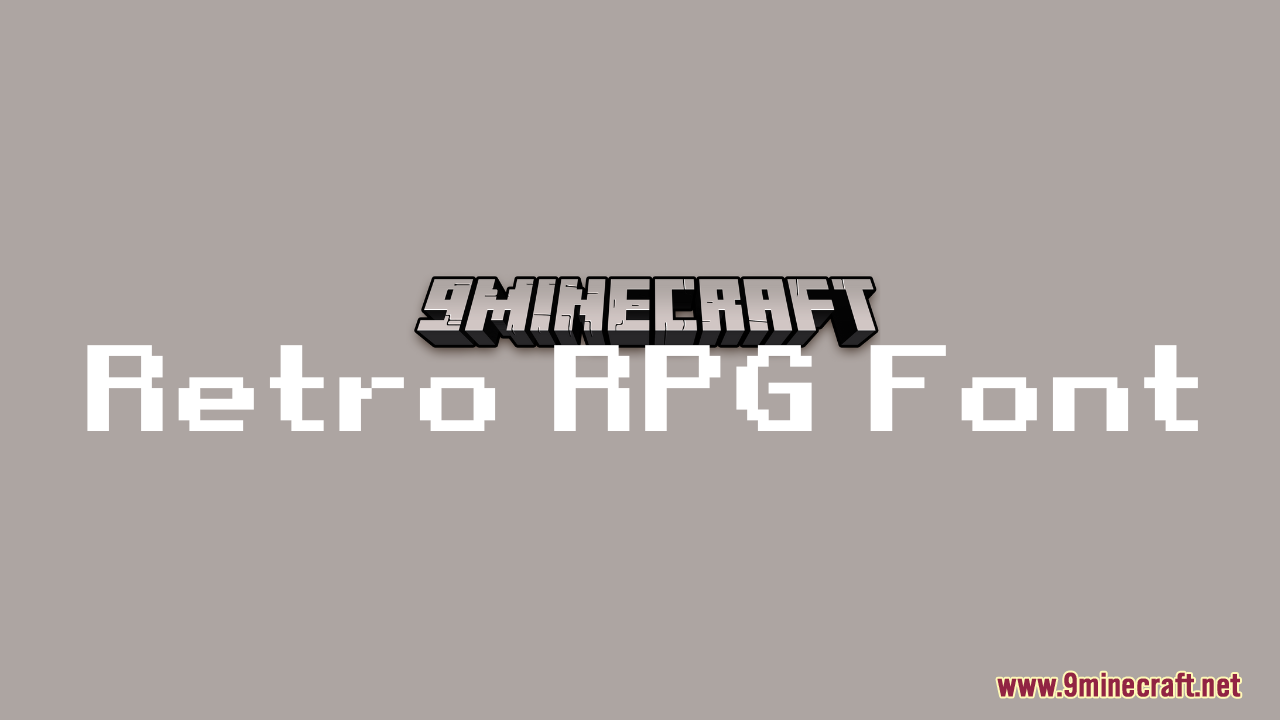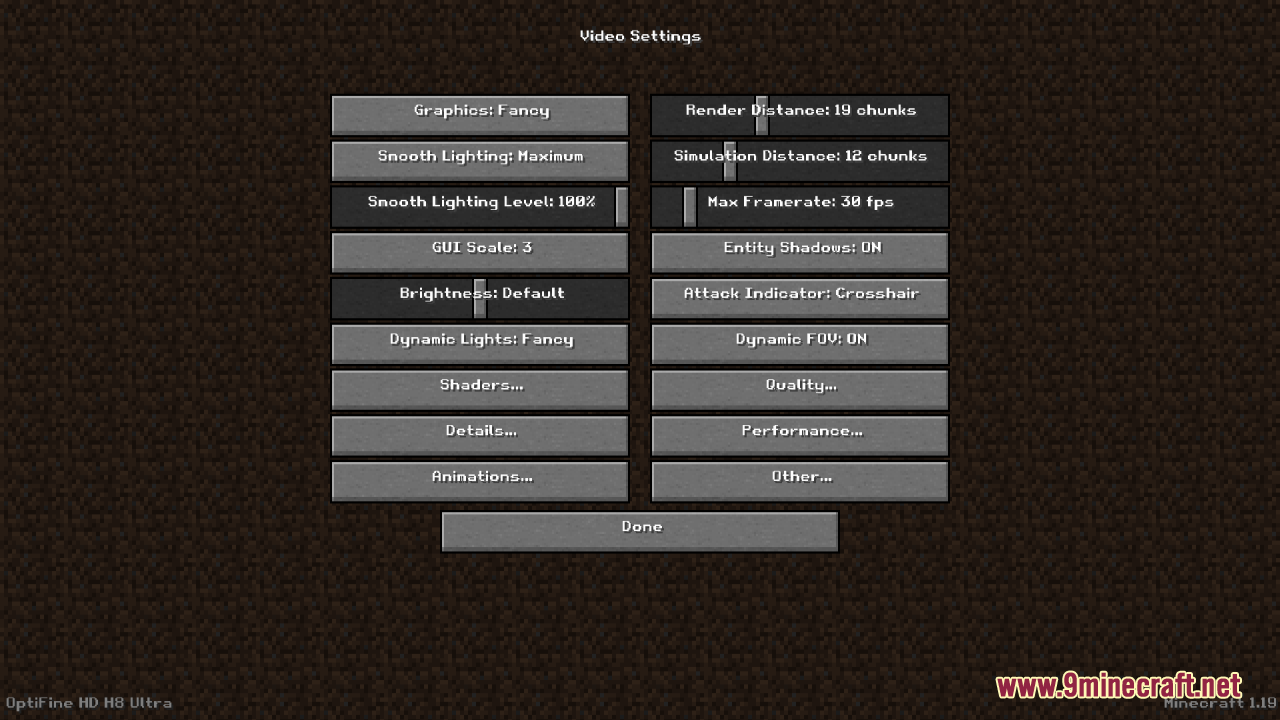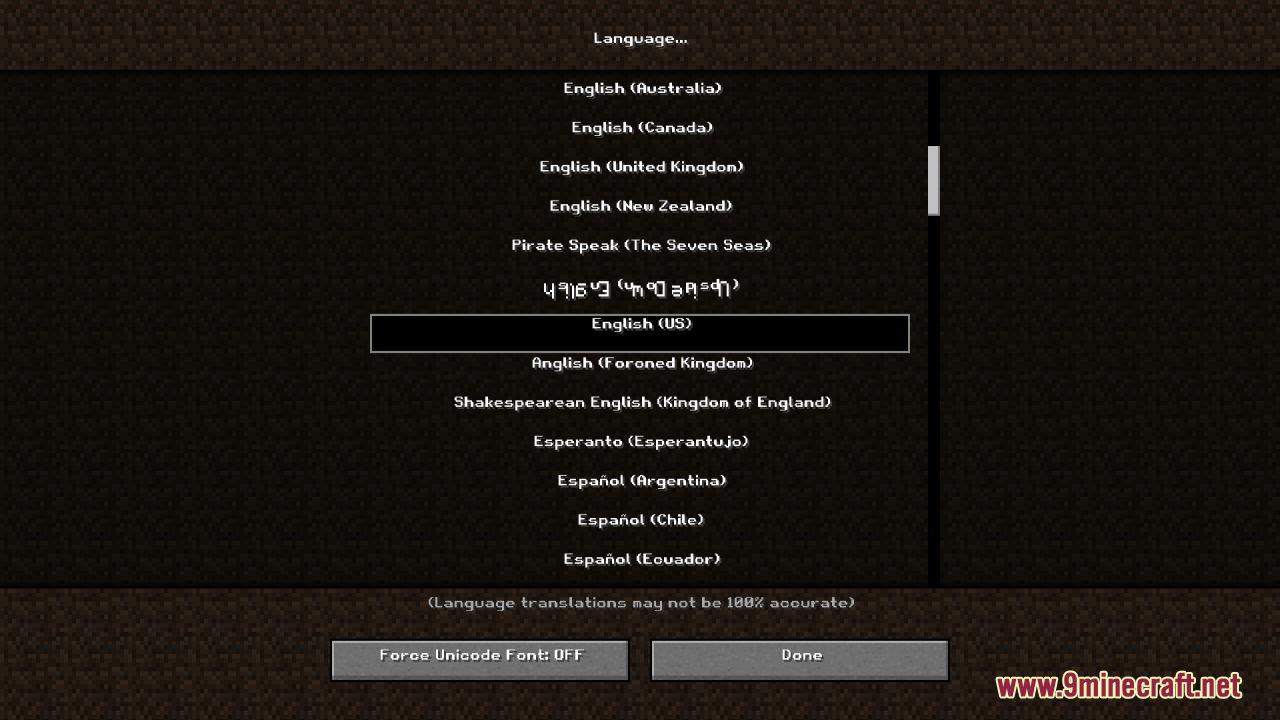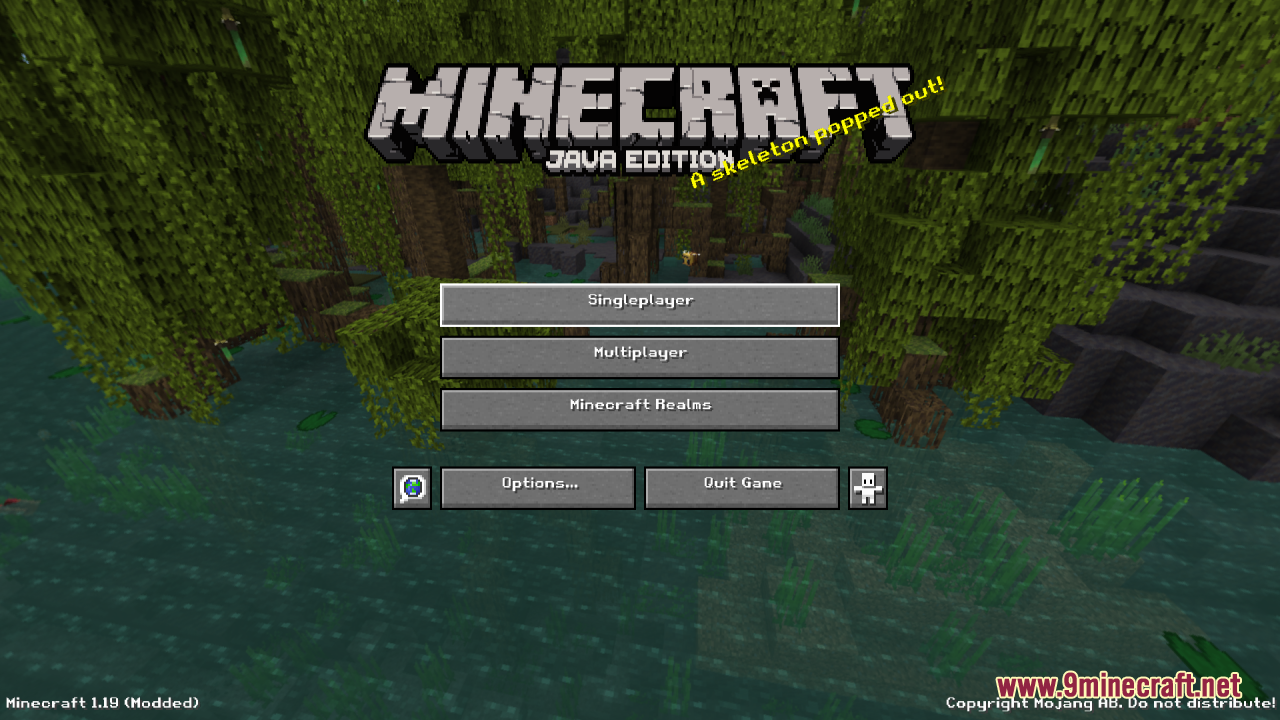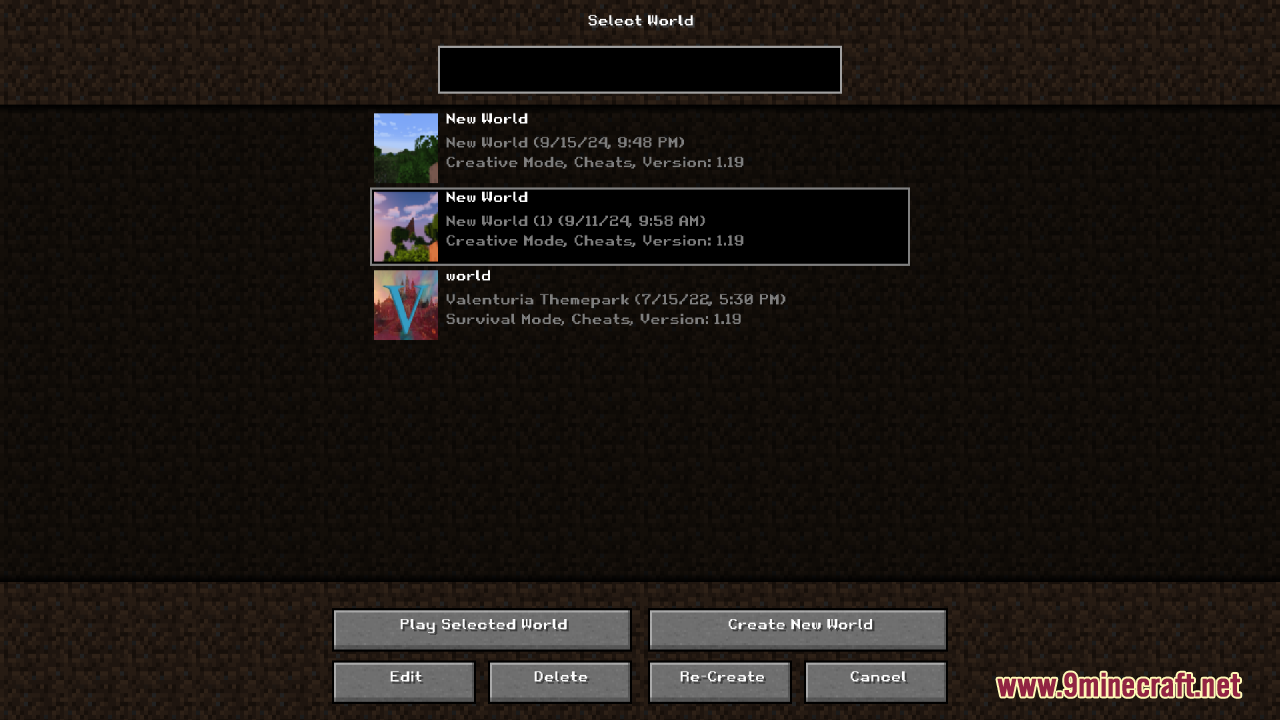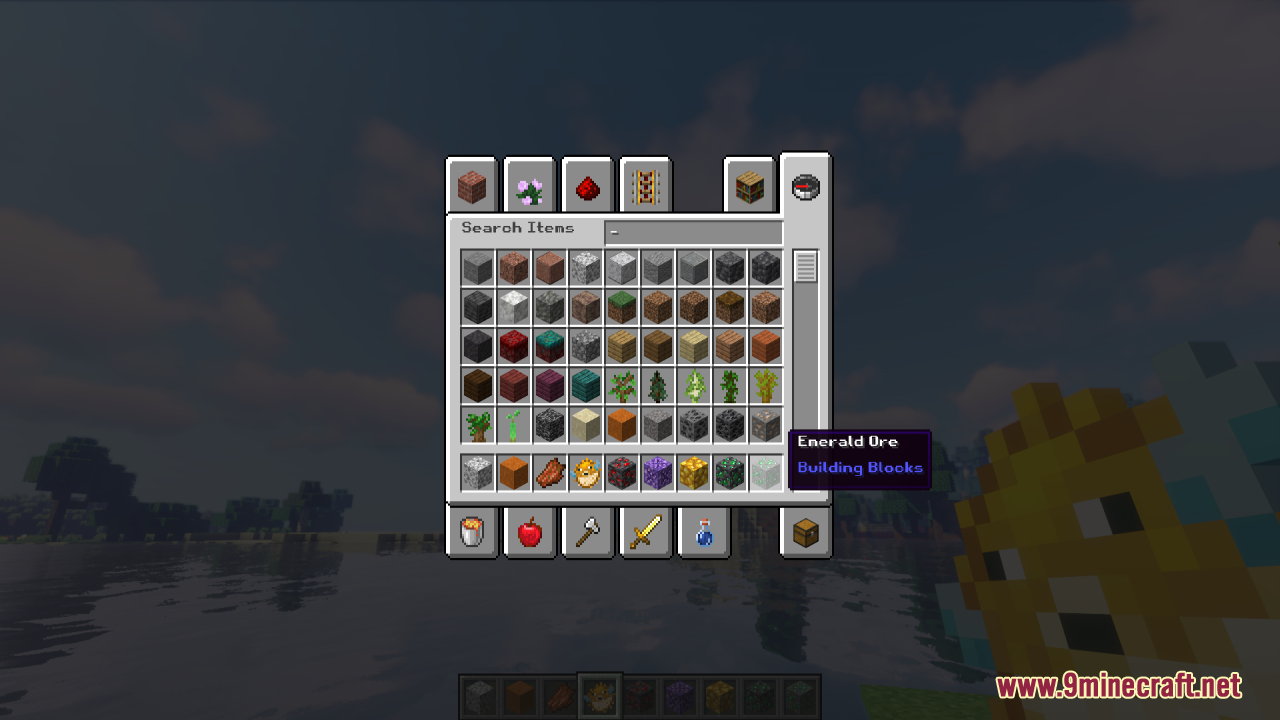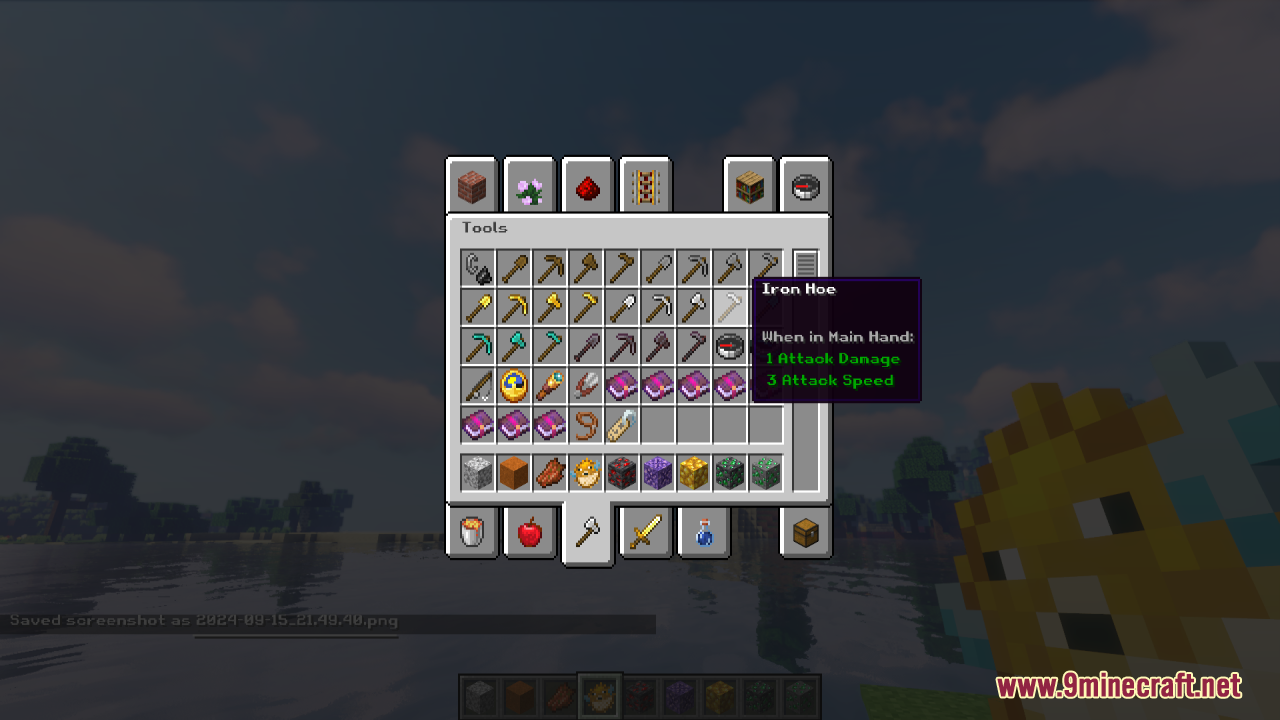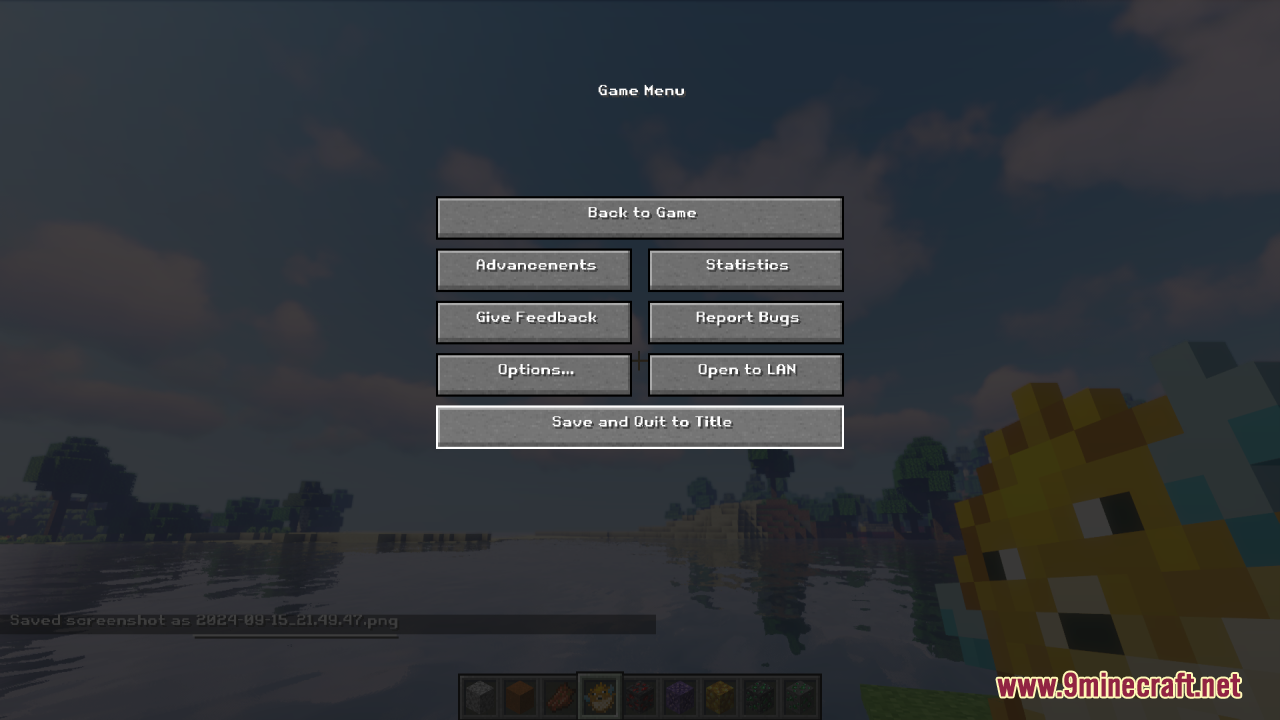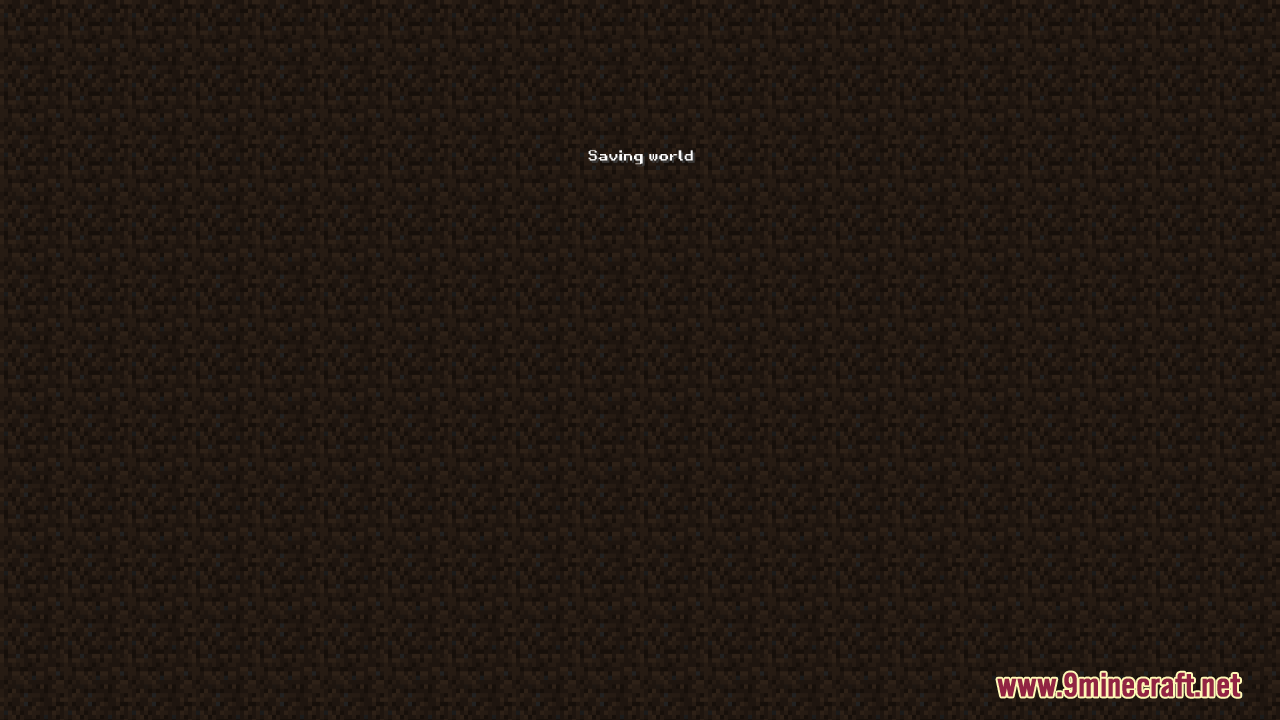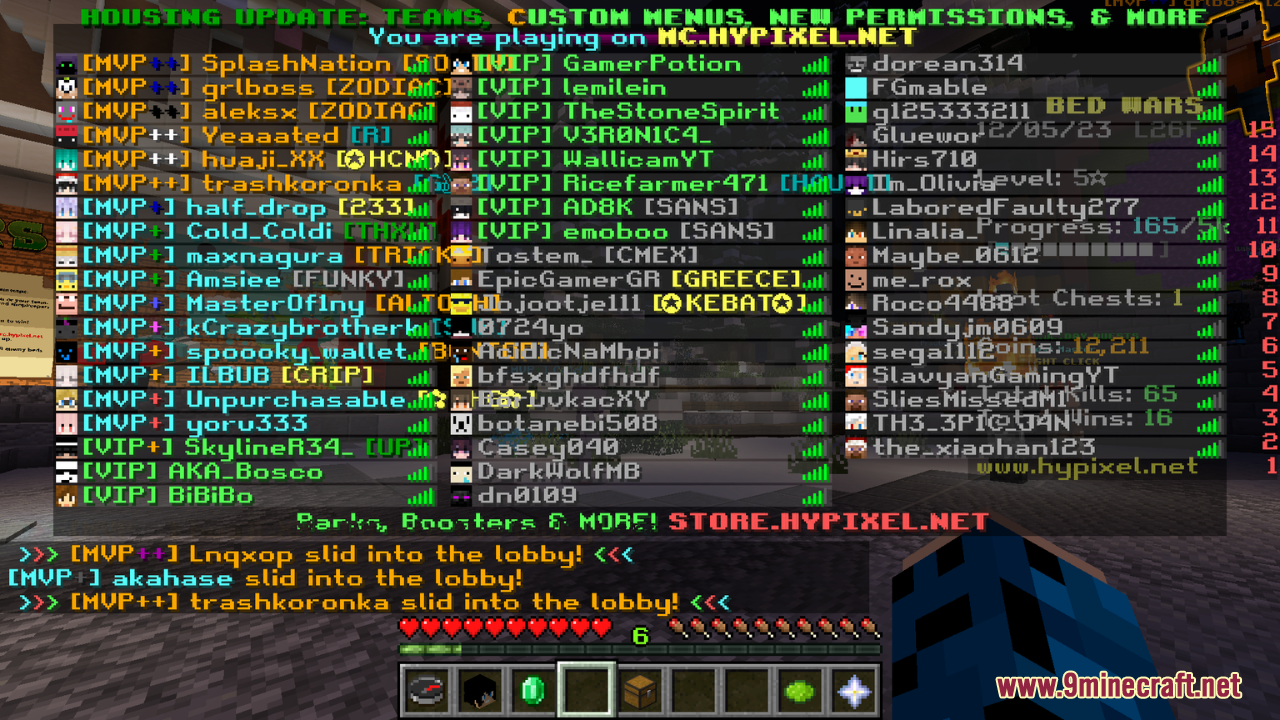
Retro RPG Font Resource Pack (26.2, 1.20.1) – Texture Pack
Retro RPG Font Resource Pack enhances your Minecraft experience by replacing the default font with a retro RPG-inspired style. This pack gives the text a classic, nostalgic feel reminiscent of old-school RPGs, while ensuring that the font remains easy to read. The design brings a unique charm to the game’s interface, adding a subtle yet impactful layer of personality that fits well within Minecraft’s blocky, pixelated aesthetic. Whether you’re adventuring, building, or crafting, this font helps create a more immersive and vintage atmosphere.